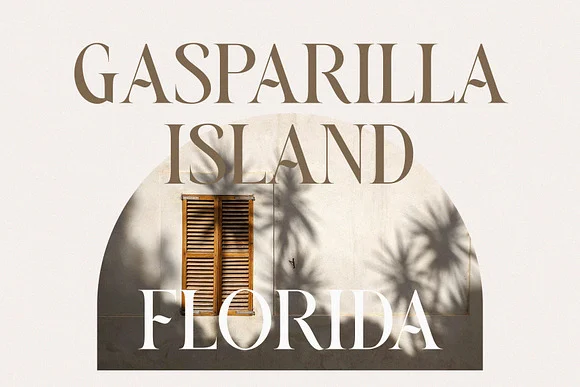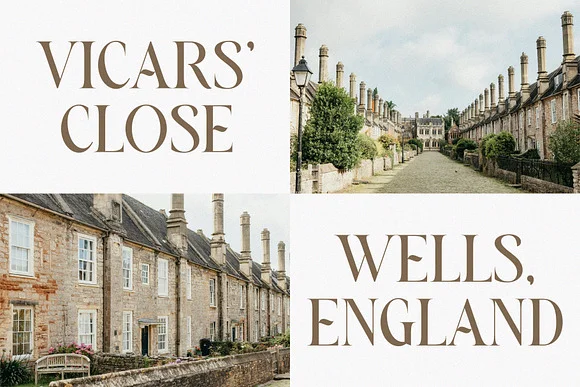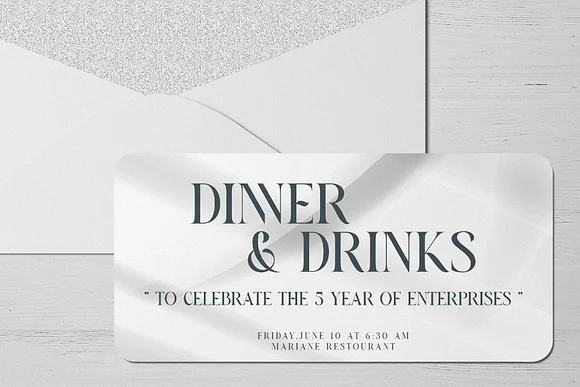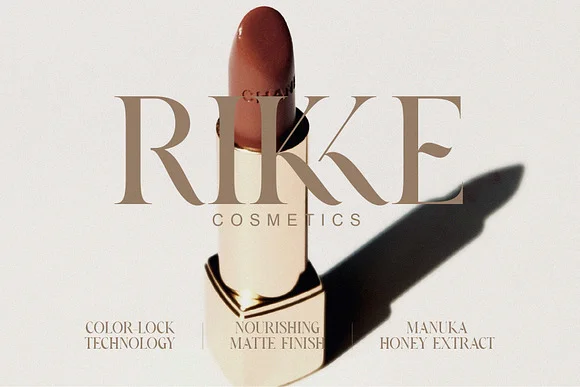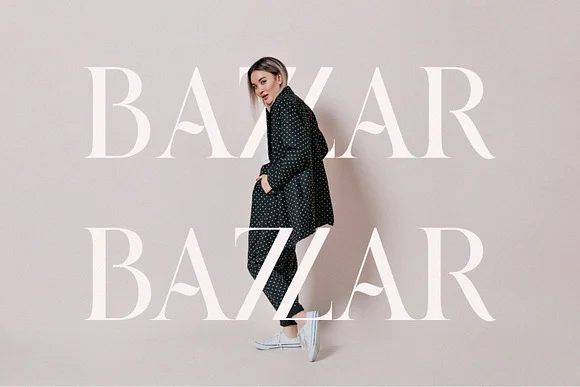
ARRESS Font
When a design brief calls for both consistent type colour across continuous text and immediate visual impact, type choices matter — ARRESS answers that brief. The typeface brings a versatile sensibility to a broad range of creative disciplines, with strong typographic hierarchy support that holds up whether the work is print-first or screen-first.
In practice, ARRESS proves particularly effective for logo design, product labels, advertising campaigns, editorial layouts, packaging design. Designers reaching for it find that the type decisions feel resolved rather than laboured — a useful quality when client timelines are tight.
The range of applications extends to signage systems, annual reports, social media graphics, environmental graphics. That breadth is deliberate: the proportions and spacing were stress-tested across a wide range of mock briefs before the typeface was finalised.
The consistent rhythm of ARRESS across a full paragraph creates the kind of even grey value that makes extended reading comfortable, a detail that matters more in long-form content than its subtlety might suggest.
In-house creative teams at consumer brands find ARRESS a reliable choice for projects that demand both personality and restraint. The design avoids the self-conscious quirkiness that dates quickly, settling instead for considered distinctiveness that holds up over time.